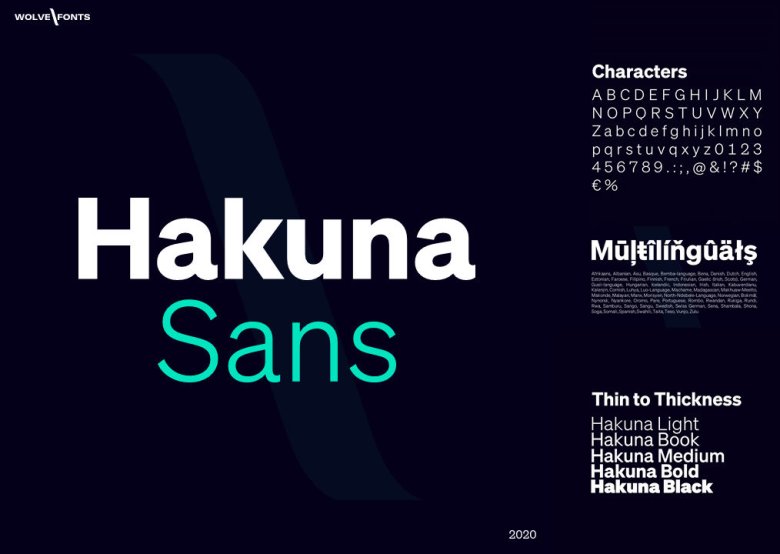
Hakuna Font
Hakuna Sans Font designed by WOLVE-Fonts is a bold and sharp-tipped sans serif typeface that is good for your various projects, such as games, sporting events, branding, banners, posters, movie titles, food and beverage, technology, quotes, clothing, types of logos, and more.